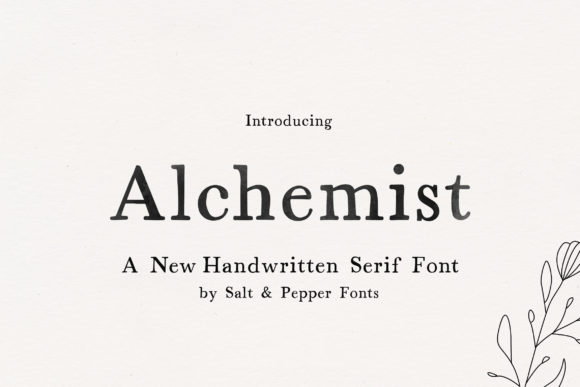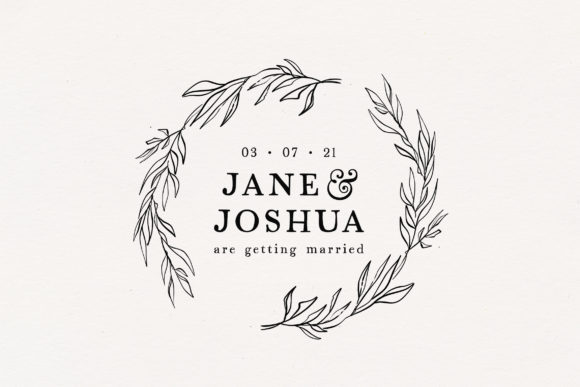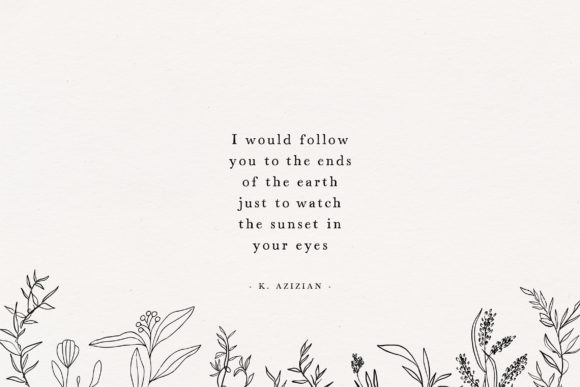
Alchemist Font: Elegant Handwritten Serif for Wedding & Logo Design
About the Alchemist Font
Crafted with precision, the Alchemist Font is ready to bring your ideas to life. Alchemist is a new handwritten serif font that you can use for wedding designs, quotes, save the date cards, greeting cards, magazines, clothing, logo designs, and much more!
Alchemist’s handwritten quality makes it ideal for headlines, short text blocks, and branding applications where a touch of handcrafted charm is desired. It excels in projects needing a personal, slightly whimsical feel, such as wedding stationery, logos for boutiques, or packaging for artisanal products. However, its less-than-optimal letter spacing and varying stroke weights make it unsuitable for body text or lengthy paragraphs.
Consider pairing Alchemist with a clean sans-serif like Montserrat for a balanced contrast, or a geometric sans-serif like Futura for a more modern, sophisticated look. For a warmer feel, a classic serif such as Garamond would complement its handwritten texture. Avoid pairing it with overly decorative or overly thin fonts, which might detract from its unique personality.
Alchemist projects a friendly, approachable, and slightly nostalgic personality. Its handcrafted aesthetic lends itself well to brands emphasizing authenticity and handmade quality, but it would be less effective for applications requiring a highly professional or corporate image.
Alchemist Font Usage Examples
Alchemist Font Example